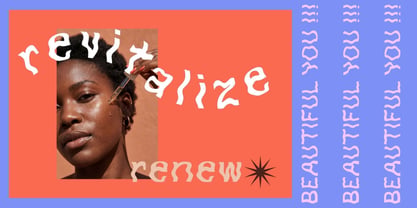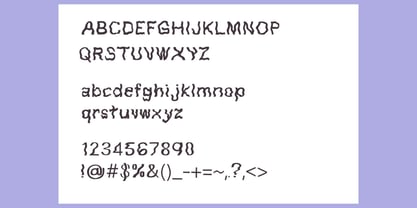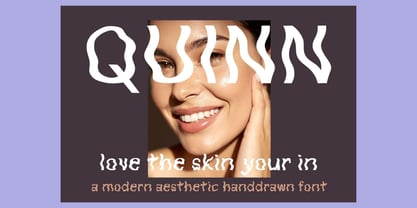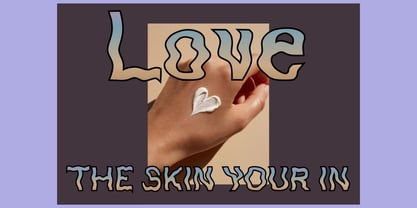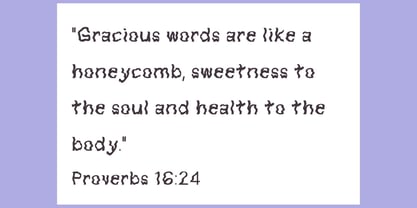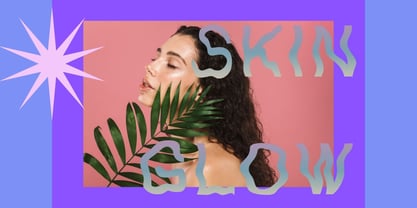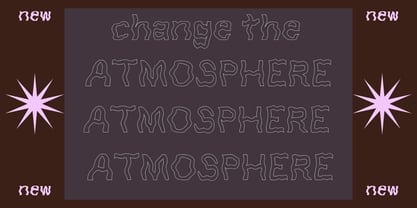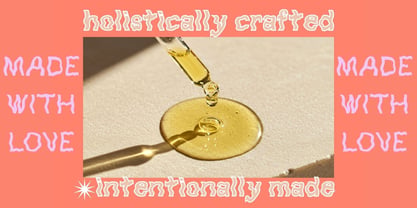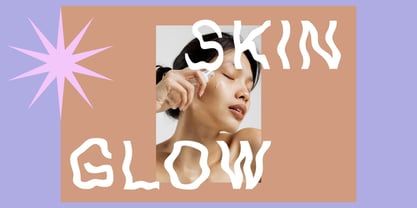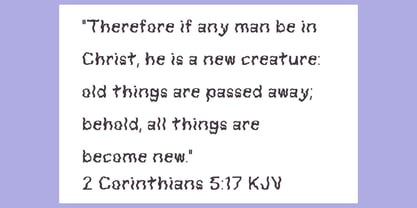
Quinn
Discover a unique font that stands out in today's design landscape—Quinn. This font embodies originality and craftsmanship, making it ideal for brands that lead rather than follow trends. With its upscale, hip, catchy, elegant, and aesthetic qualities, Quinn is designed to elevate your branding to new heights. Its minimal, stylish waves are unmatched, making it perfect for a variety of applications, whether you're branding a skincare line, clothing line, or enhancing your social media presence. Quinn's effortless charm and appeal are sure to catch eyes and attract followers. Happy Designing!
Designer: Eryn Rose Tomlinson
Foundry: Eryn Rose Design
Eryn Rose, a graduate of the Rhode Island School of Design, is a multifaceted artist specializing in illustration, graphic design, and type design. She skillfully blends modern and classic typography, leveraging her fine art and design expertise. Each piece of her typography is unique, ensuring that it cannot be replicated or found elsewhere. Eryn's typography is artfully crafted, infusing warmth into her designs that only a human touch can provide. Her work resonates across various industries, including editorial, tech, and retail, setting her apart in the competitive market with her signature style and design philosophy.